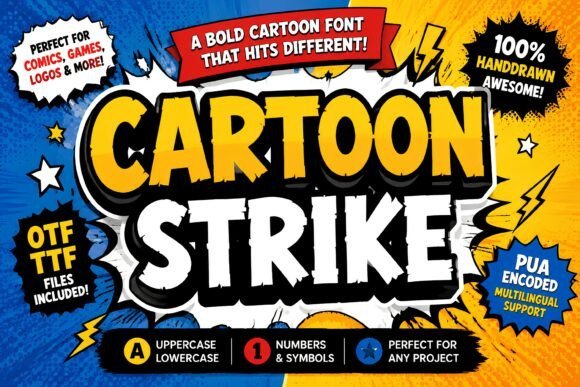
Smash through the ordinary and inject your canvas with pure action using Cartoon Strike, a bold cartoon font that hits different.
This 100% hand-drawn display powerhouse captures the explosive energy of classic comic books and arcade games Featuring chunky, blocky letterforms built with a heavy, stylized visual bounce, each character is accented by subtle, rugged chiseled cutouts along the edges, giving it an undeniable look of high-impact motion.